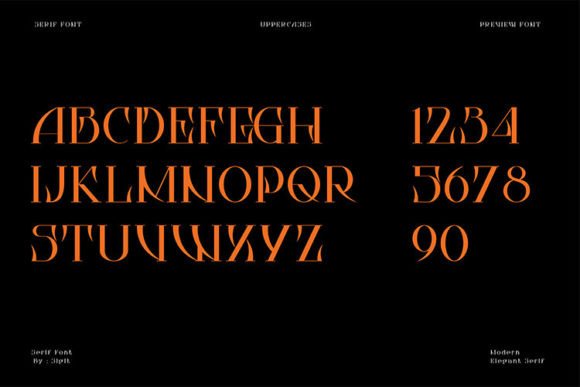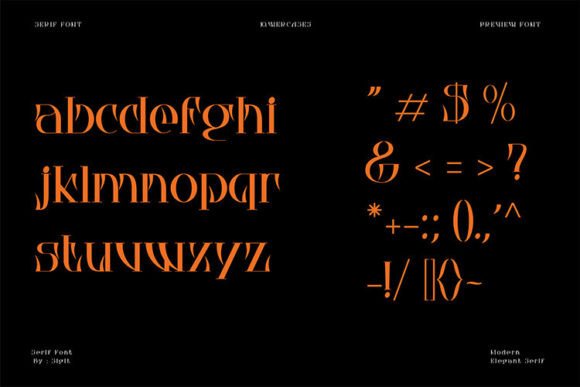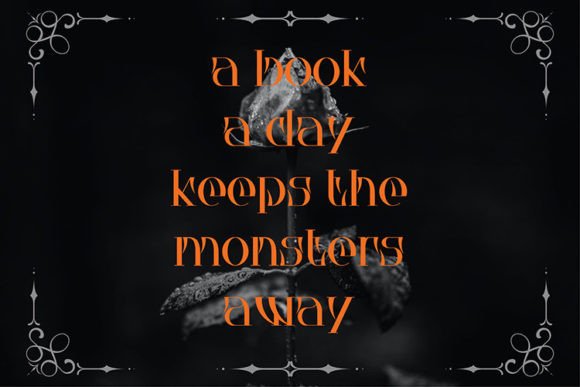
Unleash the Elegance of Hellga Font: A Gothic-Inspired Serif for Stunning Designs
Are you a designer or crafter looking for a font that can add a touch of elegance and mystery to your projects? Look no further than the Hellga Font, a gothic-inspired serif that is sure to make any presentation or design stand out. With its unique blend of classic and modern elements, Hellga is the perfect choice for a wide range of applications, from magazines and branding to posters and invitations.
A Closer Look at Hellga Font
Hellga is an elegant, all-style caps serif font that boasts a distinctive gothic flair. Its intricate details and ornate features make it a standout in the world of typography. But what really sets Hellga apart is its extensive set of alternative styles for each character. This means that you can mix and match different glyphs and ligatures to create a truly unique look that reflects your personal style or brand identity.
One of the best things about Hellga Font is that it is PUA (Private Use Area) encoded. This means that you can access all of the amazing glyphs and ligatures with ease, without having to worry about complicated font mapping or encoding issues. With Hellga, you can simply select the character or glyph you want to use and get creative!
So, what can you create with Hellga Font? The possibilities are endless! Here are just a few ideas to get you started:
- Magazines and editorials: Add a touch of gothic elegance to your magazine or editorial design with Hellga’s ornate serifs and intricate details.
- Branding and logos: Create a memorable brand identity with Hellga’s unique and eye-catching letterforms.
- Posters and flyers: Make a statement with Hellga’s bold and dramatic font styles, perfect for posters, flyers, and other promotional materials.
- Invitations and events: Add a touch of mystery and sophistication to your invitations and event materials with Hellga’s gothic-inspired font.
Why Choose Hellga Font?
So, why should you choose Hellga Font for your next design project? Here are just a few reasons:
- Unique and elegant design: Hellga’s gothic-inspired serif font is unlike anything else out there, making it the perfect choice for designers who want to stand out from the crowd.
- Highly versatile: With its extensive set of alternative styles and PUA encoding, Hellga can be used for a wide range of applications and design projects.
- Easy to use: Hellga’s PUA encoding makes it easy to access all of the font’s amazing glyphs and ligatures, even for designers who are new to font editing.
Get Creative with Hellga Font
In conclusion, Hellga Font is an exceptional gothic-inspired serif font that offers a wide range of design possibilities. Its elegant and ornate features, combined with its PUA encoding and extensive set of alternative styles, make it the perfect choice for designers and crafters who want to create unique and eye-catching designs. Whether you’re working on a magazine, branding project, poster, or invitation, Hellga Font is sure to make your design stand out.